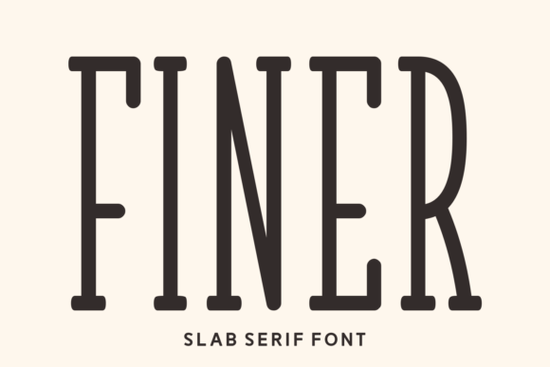
When you are designing for print-on-demand products, finding a typeface that balances readability with personality can feel difficult. Many designers struggle to find text that stands out without appearing too busy or outdated. This is why creators are increasingly choosing Finer Font. It brings a modern twist to classic structures, ensuring your message is seen clearly while still catching the eye. Unlike basic sans-serifs, this typeface has character built into every letterform.
How does this font improve apparel and merchandise designs?
T-shirts, tote bags, and stickers often require text that is bold enough to survive washing and handling but soft enough to fit nicely on curves. Being round and smooth, this font calms your eyes while swashing adds a fairy-tale touch to it. Tailored specifically for t-shirts, this font family also comes with regular fonts suiting every need of yours. These qualities mean the design won't lose its shape when applied to uneven surfaces like fabric. The contrast between the thick serifs and the rounded edges creates visual interest without requiring complex graphics behind the text.
Multilingual support is another key factor for anyone selling internationally. It breaks the barriers of language, making it a universal choice for designers all around the world. Whether you are selling in the US, Europe, or Asia, the letters remain consistent and legible. You do not need to switch between multiple packs just because a customer speaks a different native tongue. This efficiency saves time during the production phase and keeps your shop operations running smoothly.
Can this typeface work for books and packaging?
Most designers know that book covers and product packaging demand attention from a distance. When it comes to branding, this font breathes a freshness that is hard to ignore. It’s clean and crisp, making every card you design a masterpiece of its own. A magazine cover needs to pop off the page, and a food package needs to look trustworthy. Because this is not merely a slab-serif font but an alternative approach to font design, it makes every word you write stand out.
The structure supports both long titles and short subtitles effectively. You can use the heavier weights for headlines to grab attention immediately, then switch to lighter versions for descriptions. This versatility brings versatility to your projects like no other. Even simple quotes on social media posts benefit from the stylistic swashes, adding a touch of elegance that plain fonts lack.